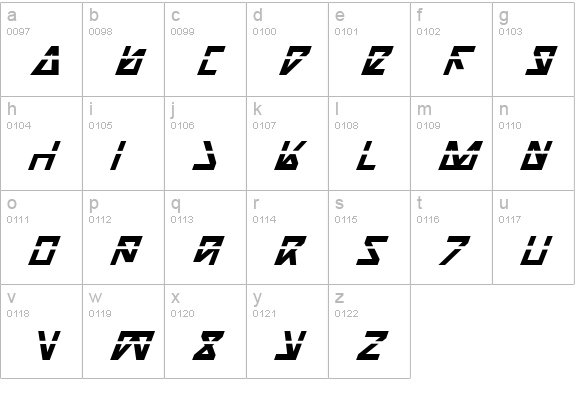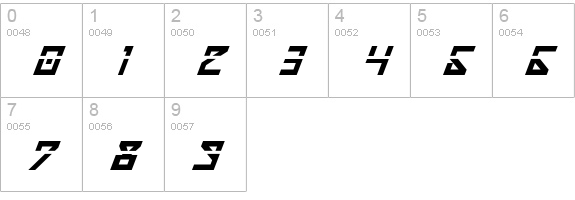
Nick Turbo Bold Italic Las Font Details
Nick Turbo Bold Italic Las is a strong, high-contrast, italic variant in the Nick typeface family \xE2\x80\x94 well suited to headlines, attention-grabbing titles, and strong calls-to-action.
Nick Turbo Bold Italic Las is a sleek and modern font that exudes confidence and style. With its bold and italic design, this font is perfect for making a statement in any design project. Whether you're creating a poster, logo, or website, Nick Turbo Bold Italic Las will add a touch of sophistication. The best part? This font is completely free to download at FontsMarket.com. So go ahead and elevate your designs with the bold and dynamic look of Nick Turbo Bold Italic Las.